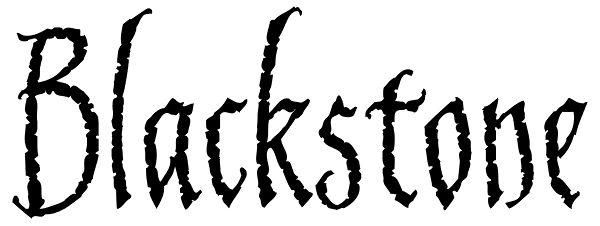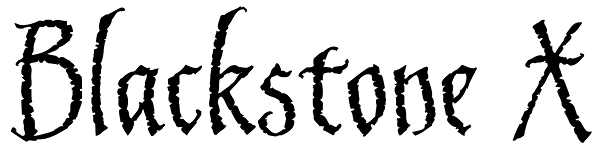
Blackstone
Dragons, magic, the Middle Ages, and all that is gothic was the inspiration for this design. It was one of ten winners in The 1988 Chartpak Typeface Design Competition and is now available in two styles with additional characters, alternates and...